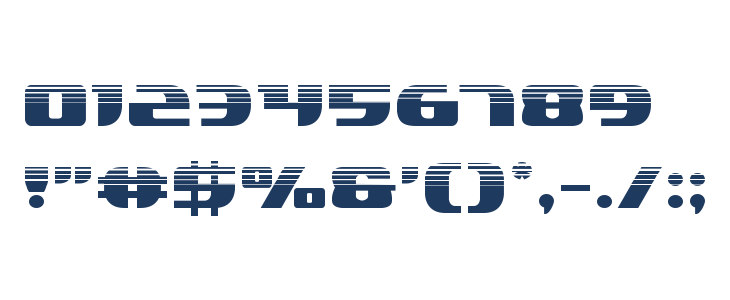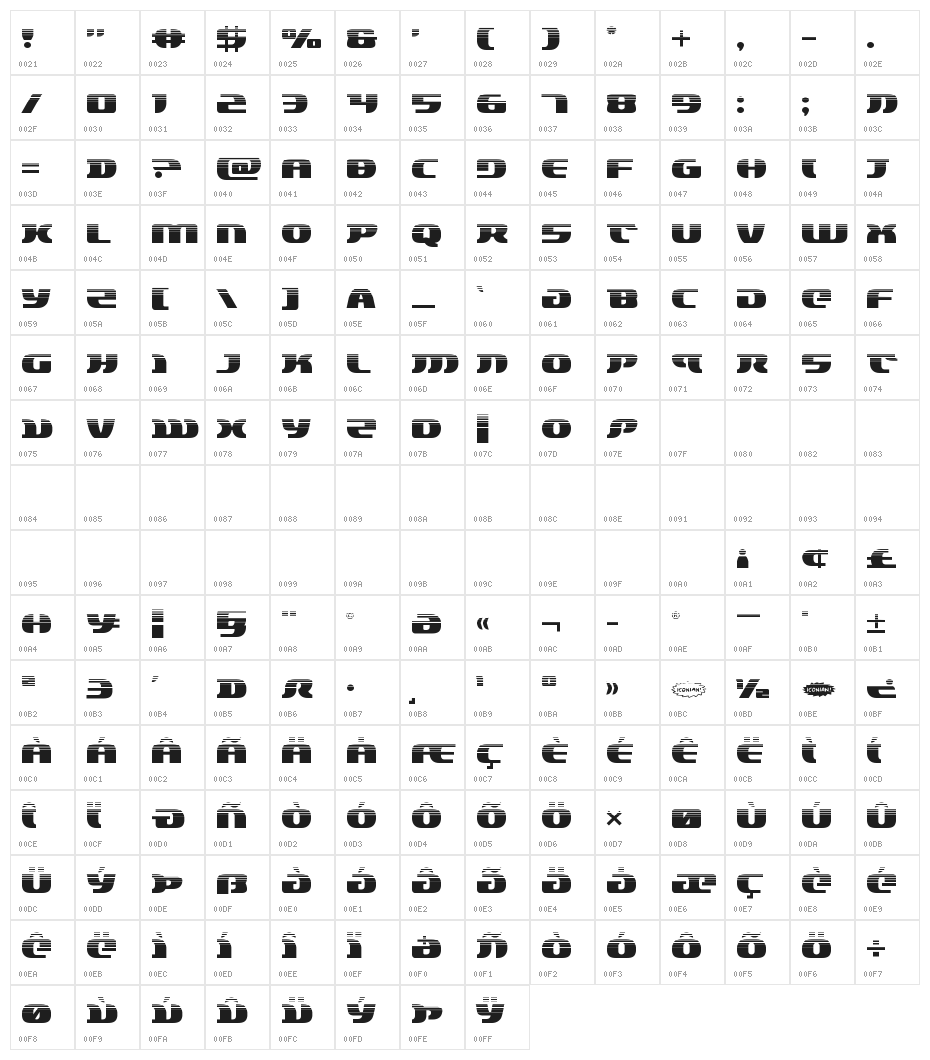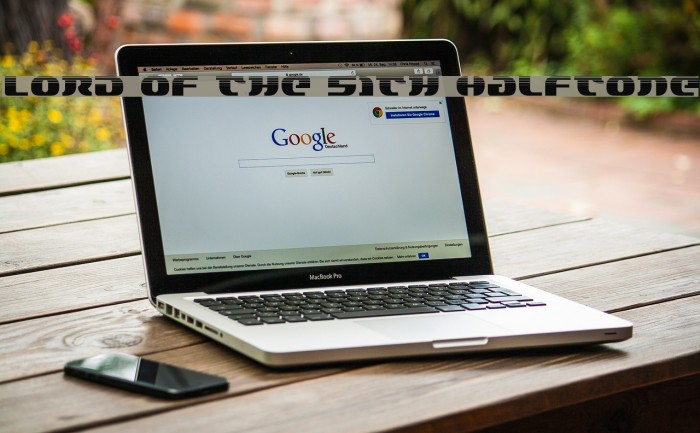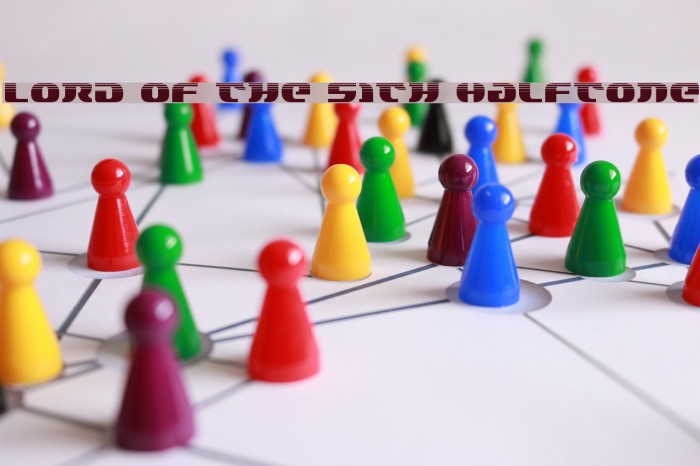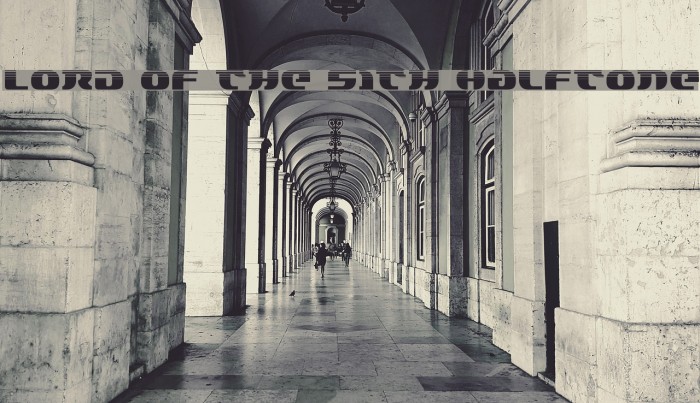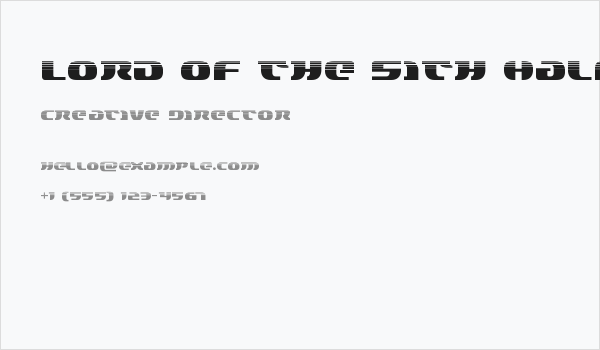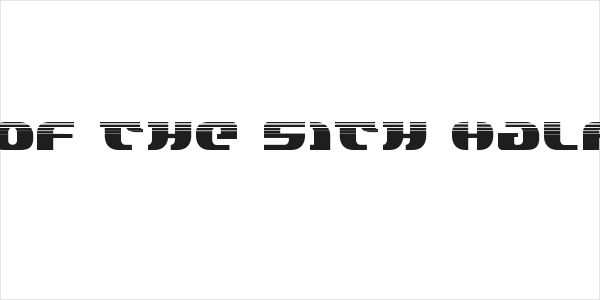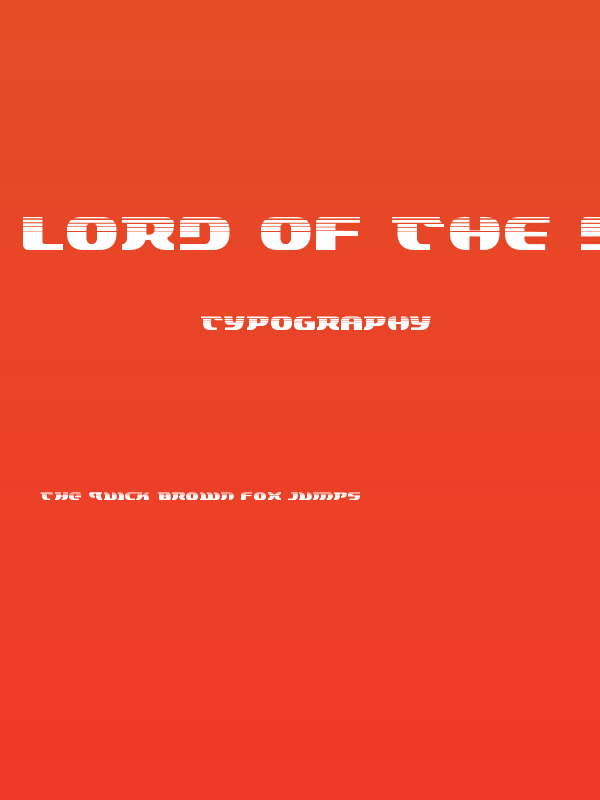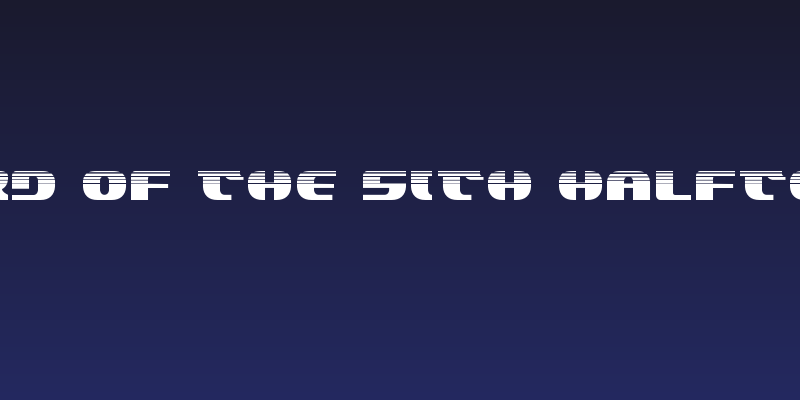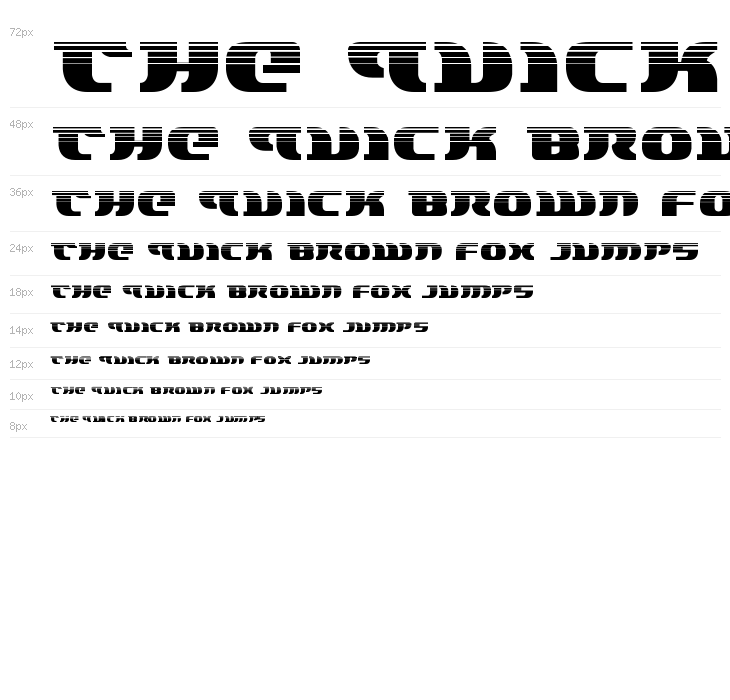
This font features a bold, futuristic design with a halftone effect that gives it a unique, digital appearance. The characters are constructed with horizontal lines that create a sense of movement and depth, making it ideal for modern and tech-oriented projects. The uppercase and lowercase letters maintain a consistent style, with rounded edges and a strong geometric influence. Numbers and special characters are equally bold and stylized, ensuring a cohesive look across all text elements. The font's distinct style makes it stand out, perfect for eye-catching headlines or branding that requires a modern, edgy feel.
| Proposed Projects | Ideal for tech branding, sci-fi posters, video game titles, and modern advertising. |